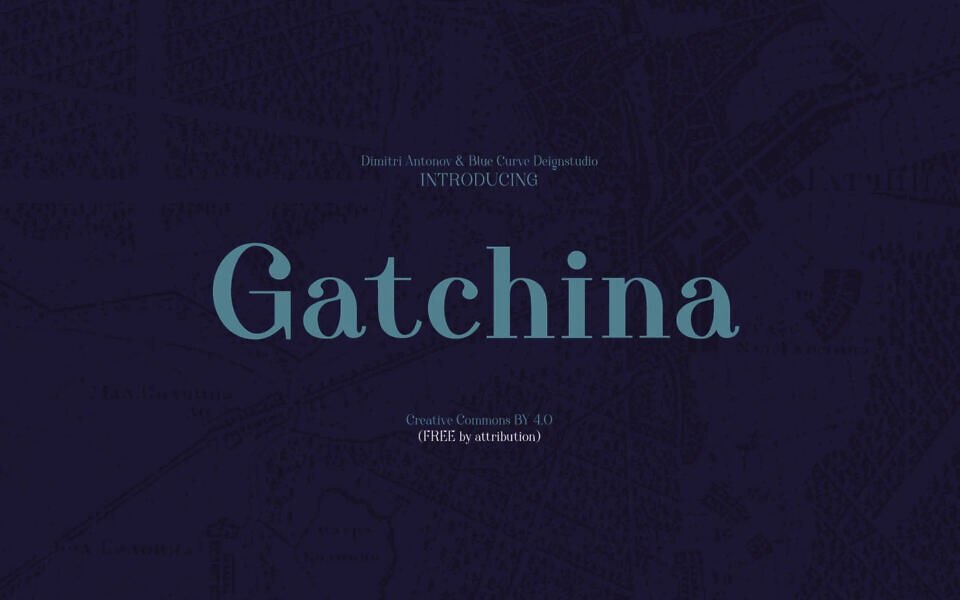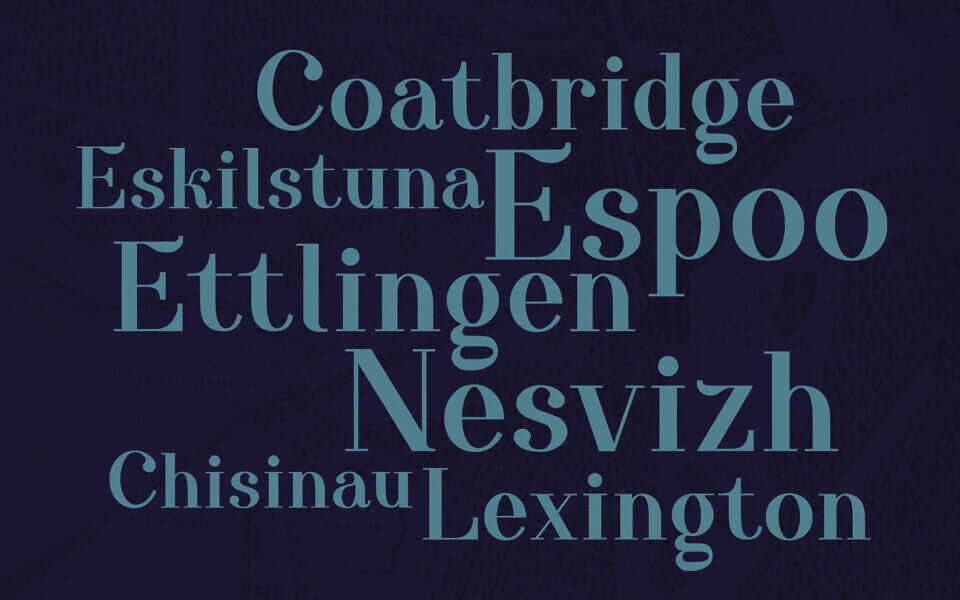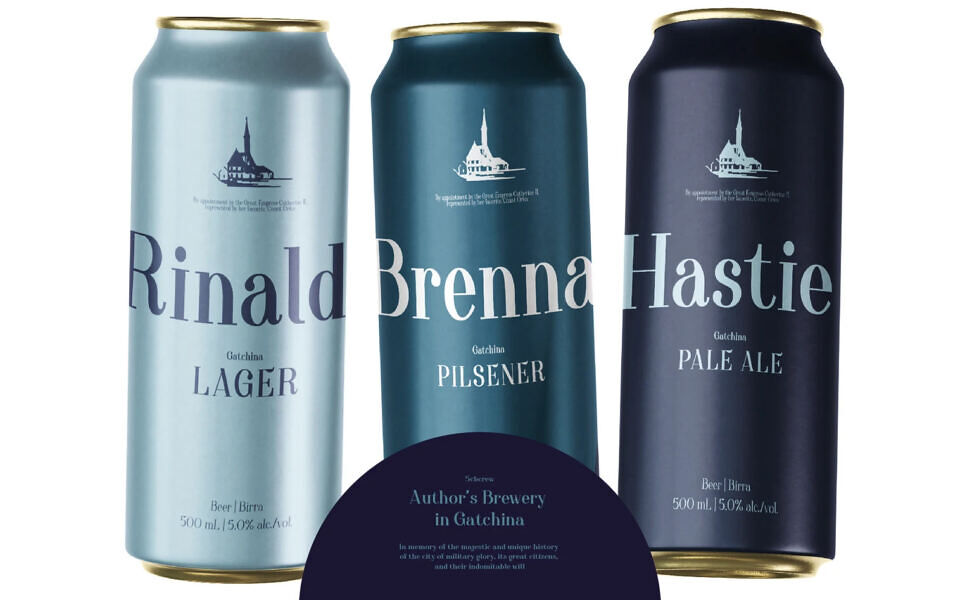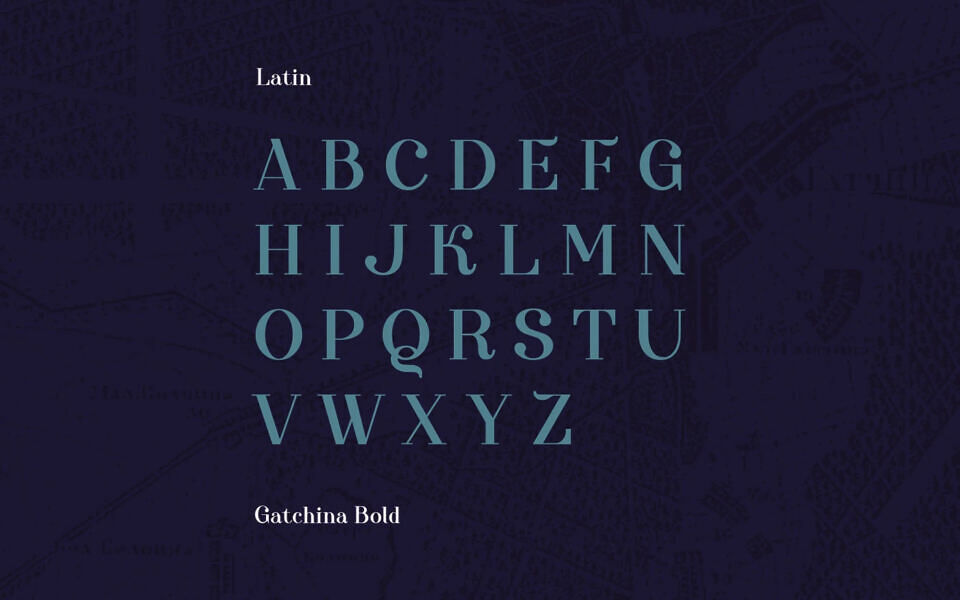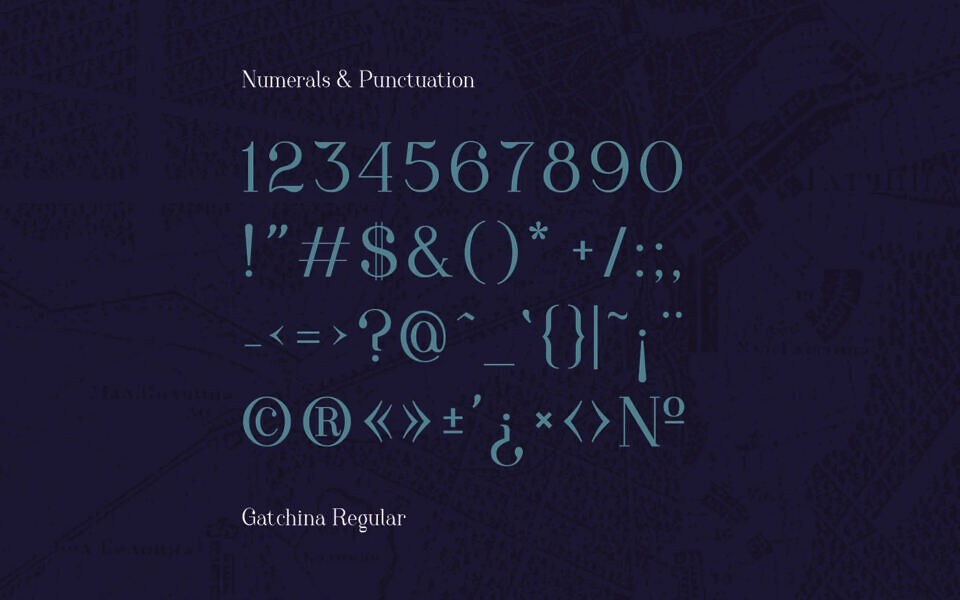
Experience the regal elegance of Gatchina, a free high-contrast serif font by Dimitri Antonov and Blue Curve Designstudio. Drawing inspiration from 18th-century Russian neoclassical aesthetics, this sophisticated typeface features sharp terminals, delicate hairlines, and distinctive character details.
Gatchina supports Latin and Cyrillic scripts, including multilingual diacritics, numerals, and punctuation. Available in Regular and Bold weights (with italics) under Creative Commons BY 4.0, it is perfect for editorial design, premium branding, and historical layouts.